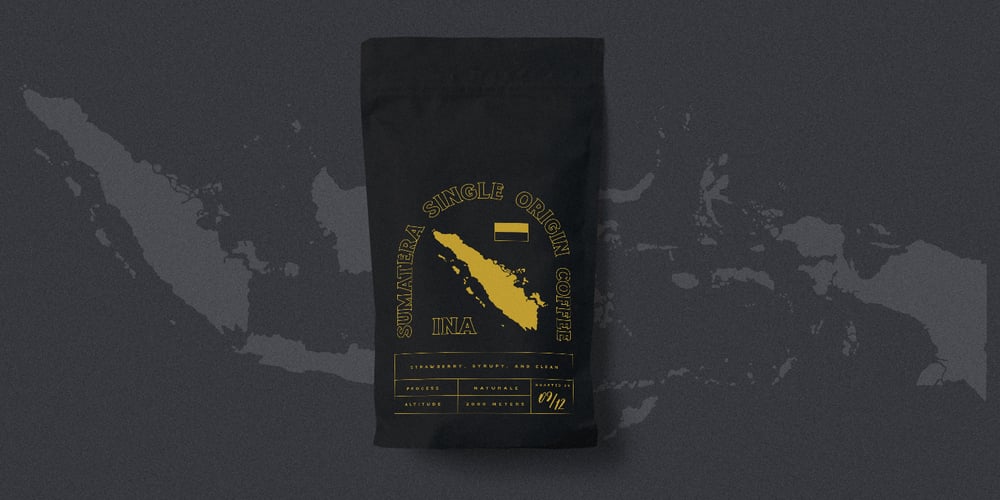
Rothe Font Family was designed by Abdilah and published by Konstantine Studio. Rothe contains 4 styles and family package options. ROTHE, A luxury vintage lettering style fonts. Inspired by the branding from the vintage classic era with the full decorative feels and complex design but still get the luxury feels right away. Armed with some swash letters to expand the style like the old lettering way.